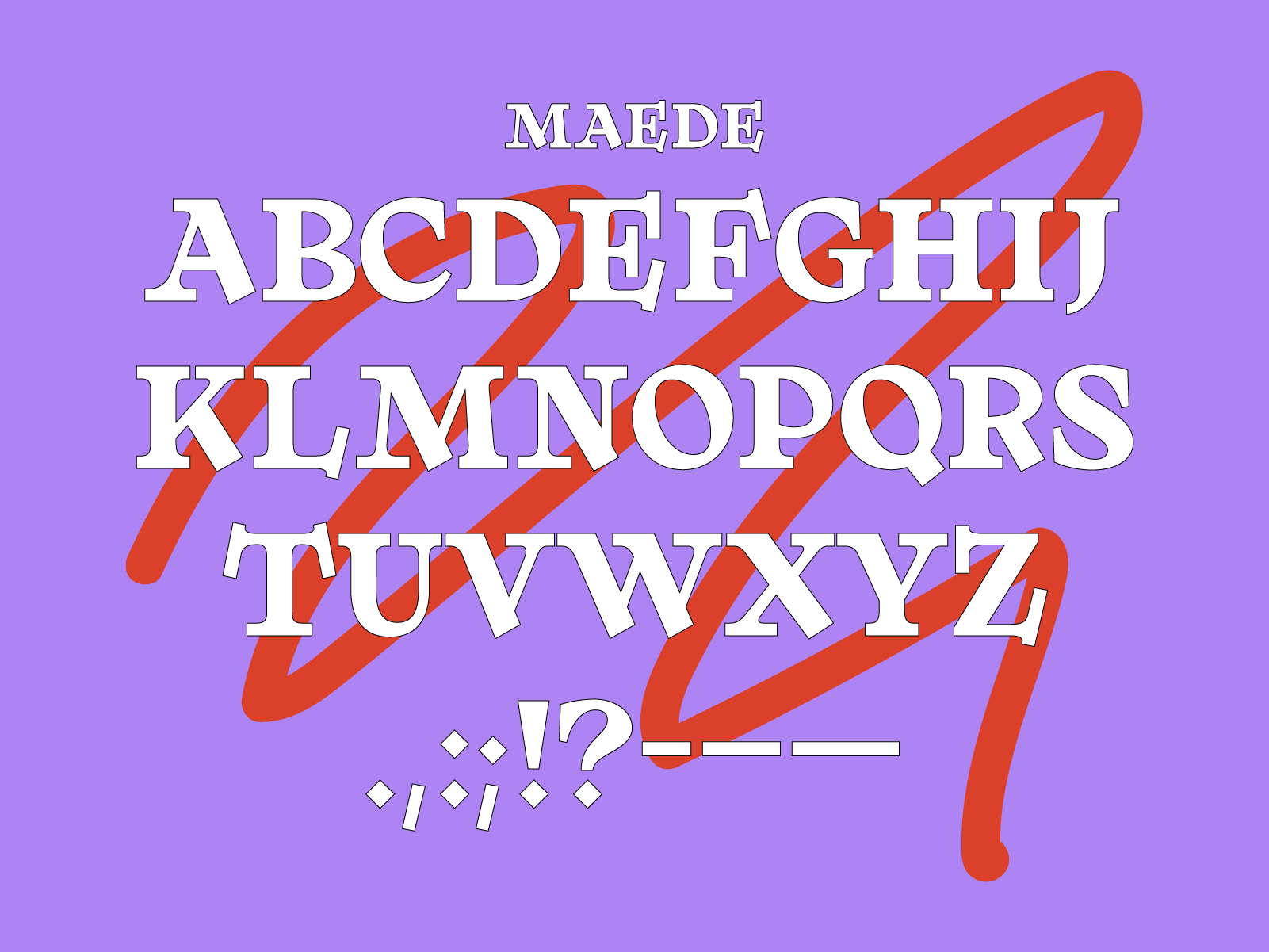
Week 37: Maede
Brush making, historical references, etc etc etc
I hope your 2022 is off to a good start. I had a real saga of a week that actually ended okay!
I had this idea recently that I want to start making different brushes/tools to make letters with. Like experimental calligraphy pens or brushes made out of random items. I was feeling very cocky about it because I used to carve spoons and I’ve made a lot of brush-adjacent things. I’ve even been hoarding some horse hair for this specific purpose. On Monday, I spent 75% of the workday trying to make a brush. I carved a little handle out of a piece of basswood. Then, I drilled holes for the hair to be glued into. It was a huge struggle to get the hairs into the drilled hole. The glue made a mess as I was doing it — it just wasn’t pretty. I let the glue dry and everything seemed like it worked.
Later, when I tried to use it — it was a huge fail. The horse hair either doesn’t hold ink very well or there weren’t enough bristles. I simply couldn’t write with it. After all that fuss, I approached this the old fashioned way. I grabbed Volume 1 of “Type: A Visual History of Typefaces and Graphic Styles” to see if there was a historical reference that I could use as a jumping off point. And of course, this book never disappoints.
I saw this little hand drawn label and thought that the N looked so cool. I have seen this style before where the heavy stroke kind of pokes out on the side like that. I drew some letters and kept that full diagonal stroke intact for the whole design and kablamo! It worked out. It’s very rule breaky and the un-serifed diagonals would likely bother most other type designers, but alas, I don’t care! To me, it’s fun, mystical, usable even!!
The final product looks like it could thrive equally in the harry potter universe or a futuristic English pub. I would personally use it for a birthday party banner or a menu for a quirky little restaurant. This font looks like if Lydian and some classic serif font (like Caslon or Garamond) had a baby. I hope y’all enjoy Maede and have a great weekend!!